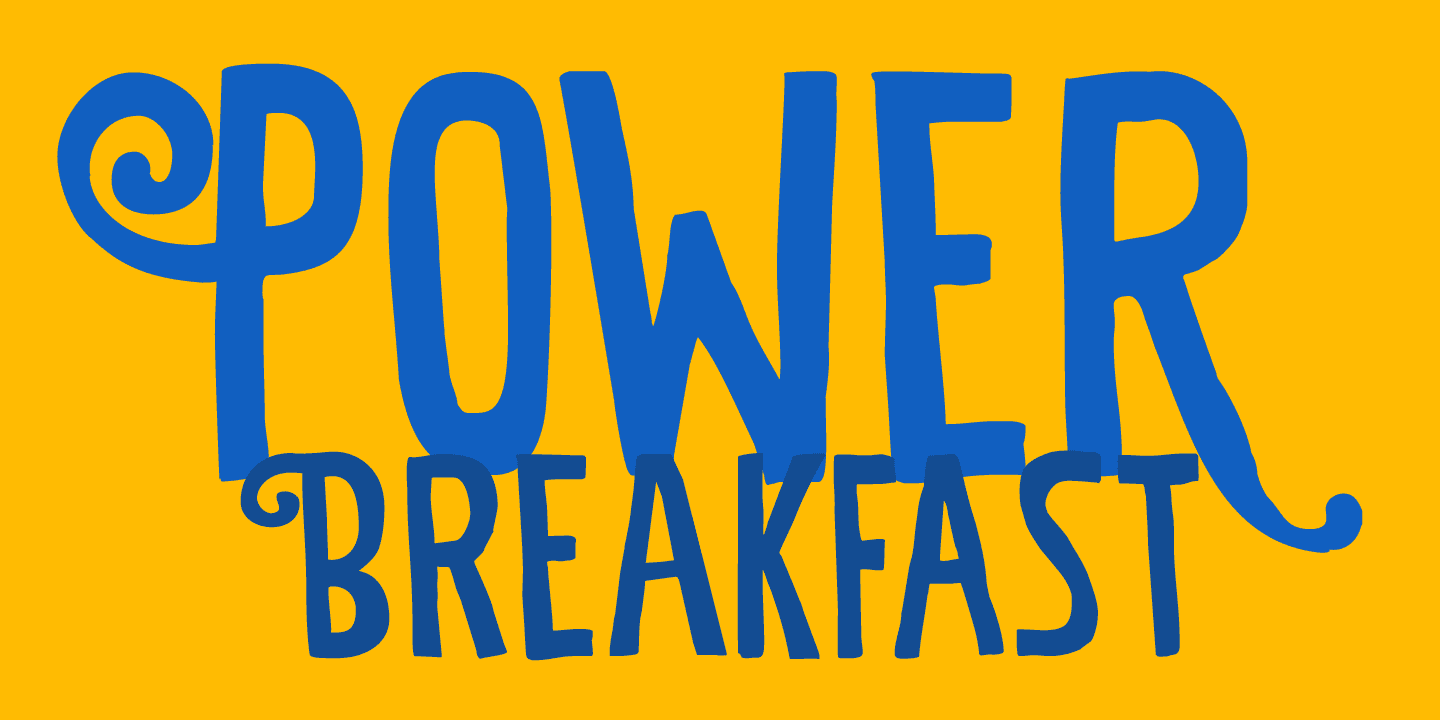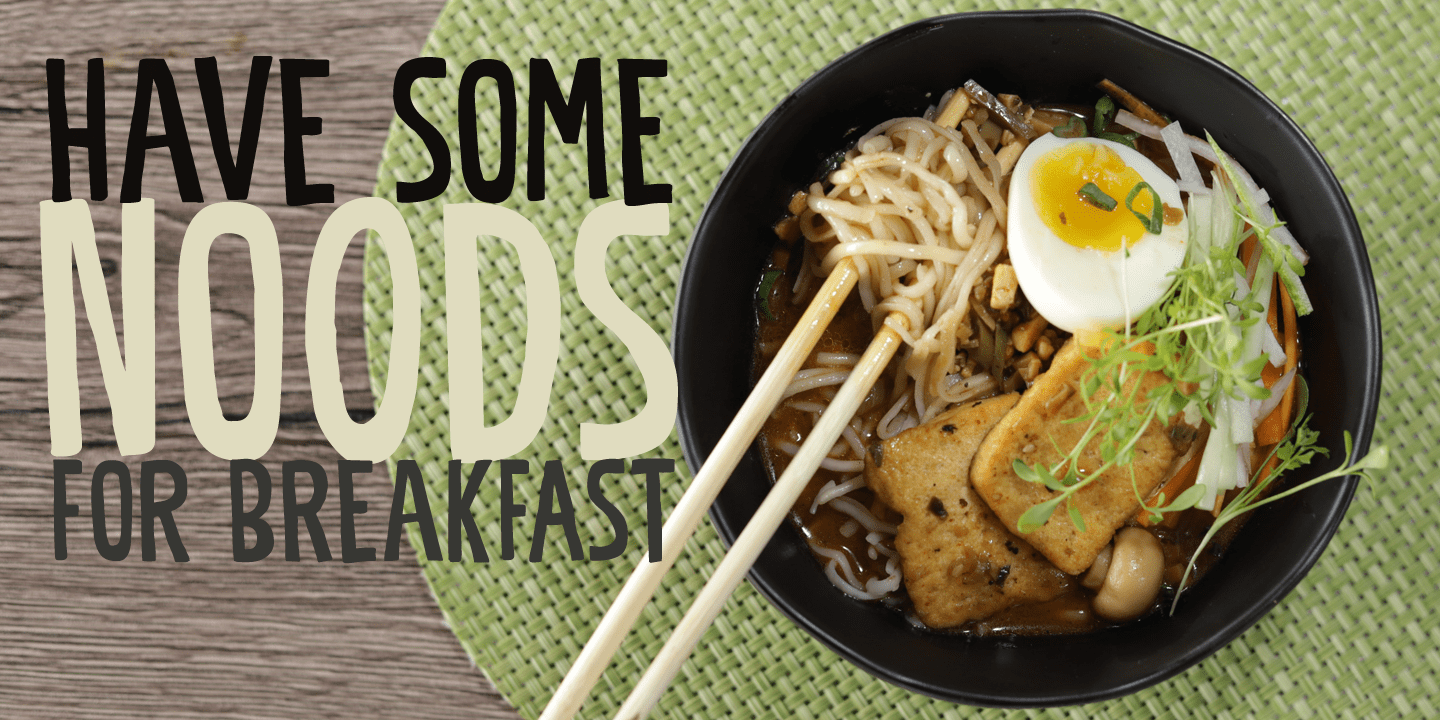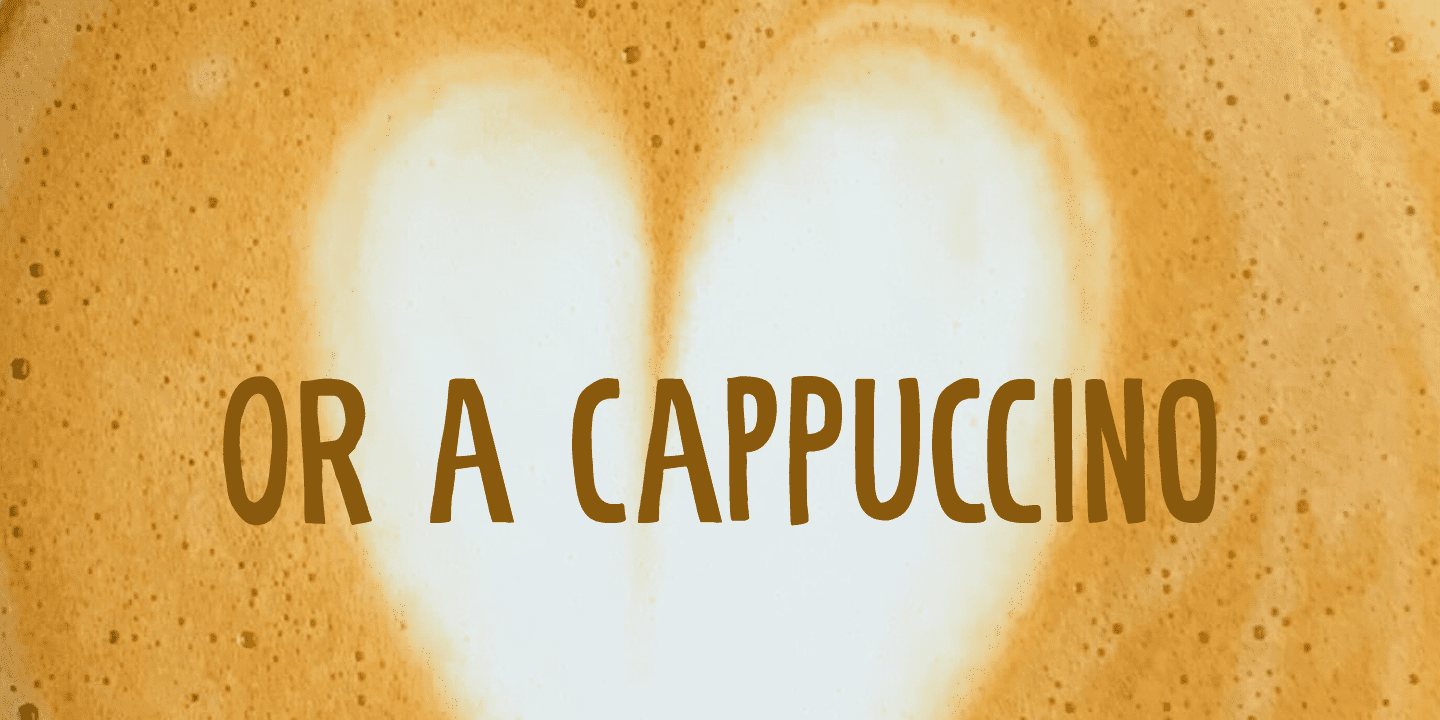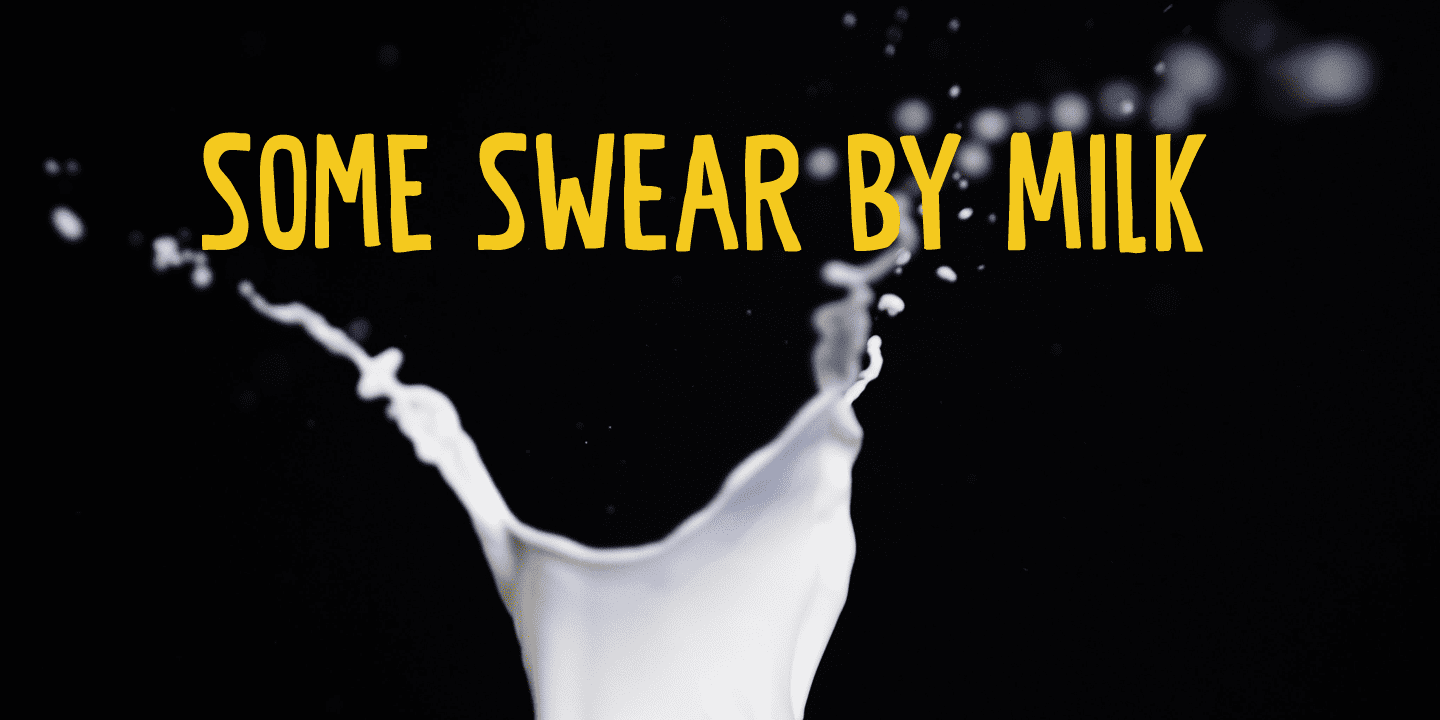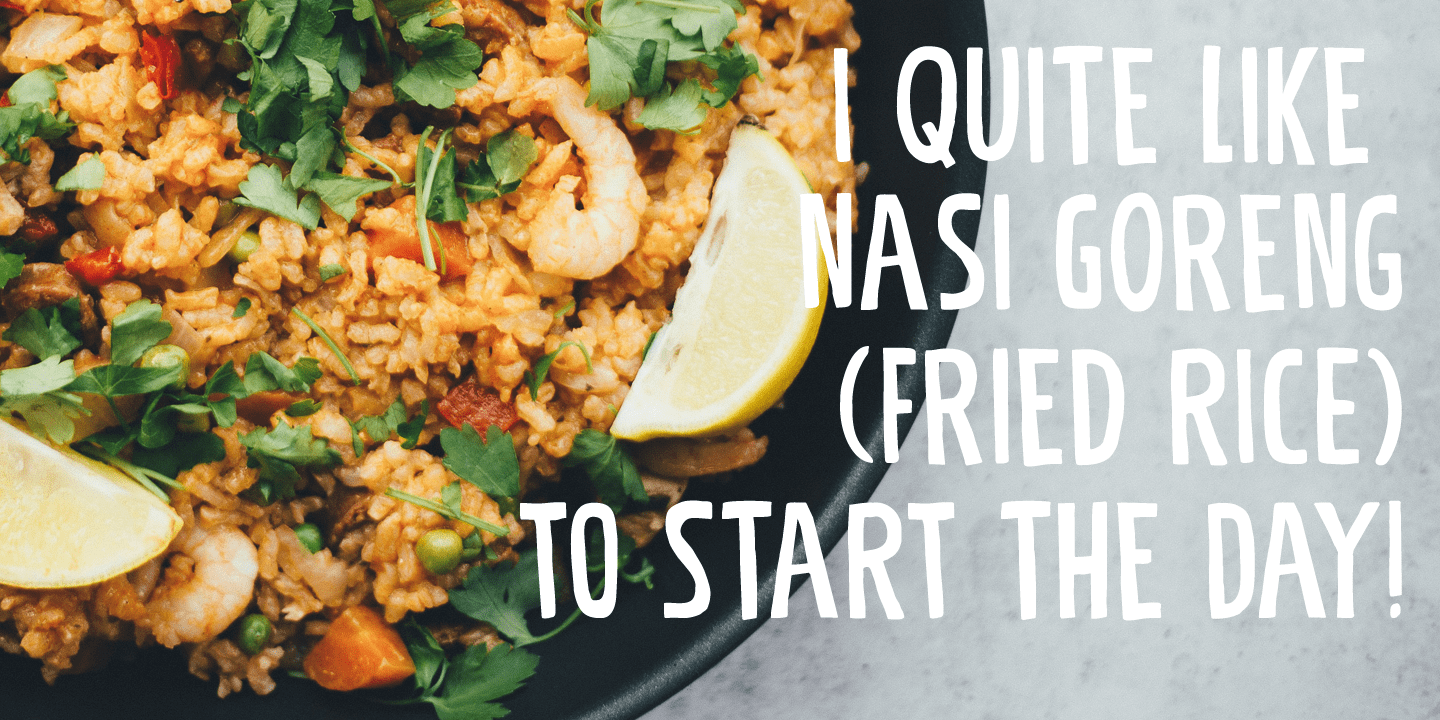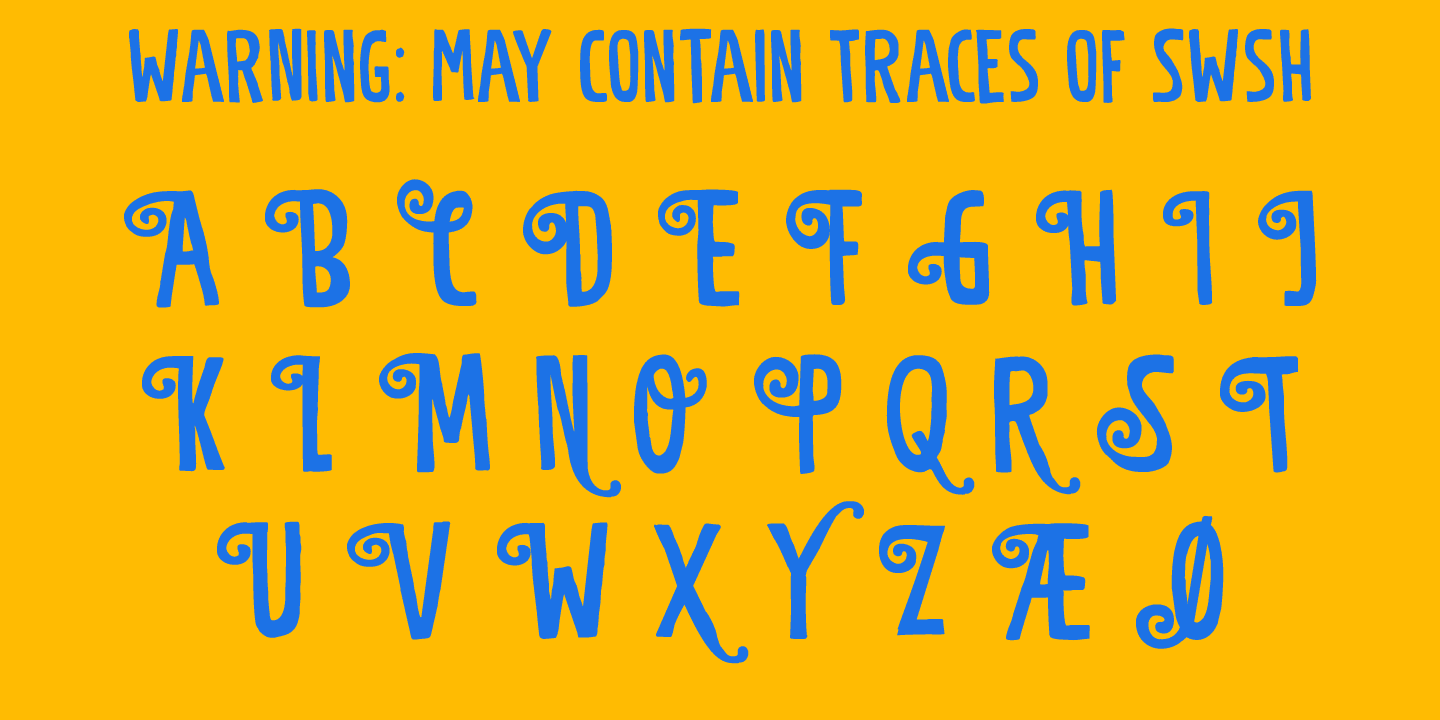
Power Breakfast Family (2 fonts)
Power Breakfast is a handmade display font. Yes, it is wobbly, yes, it is uneven, but that’s what’s so darn good about it!